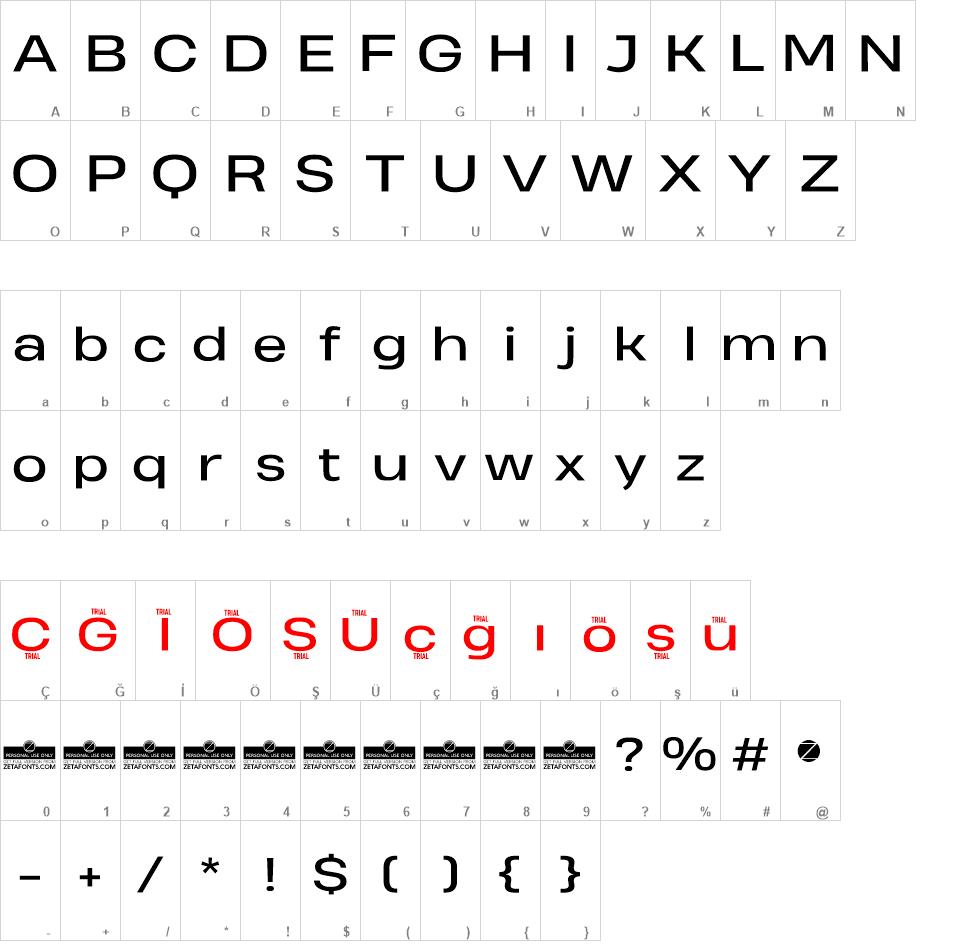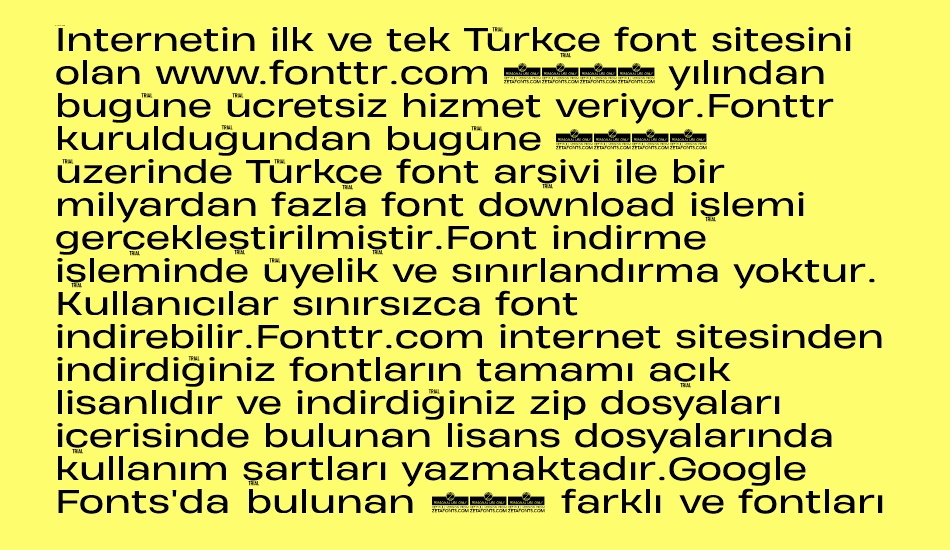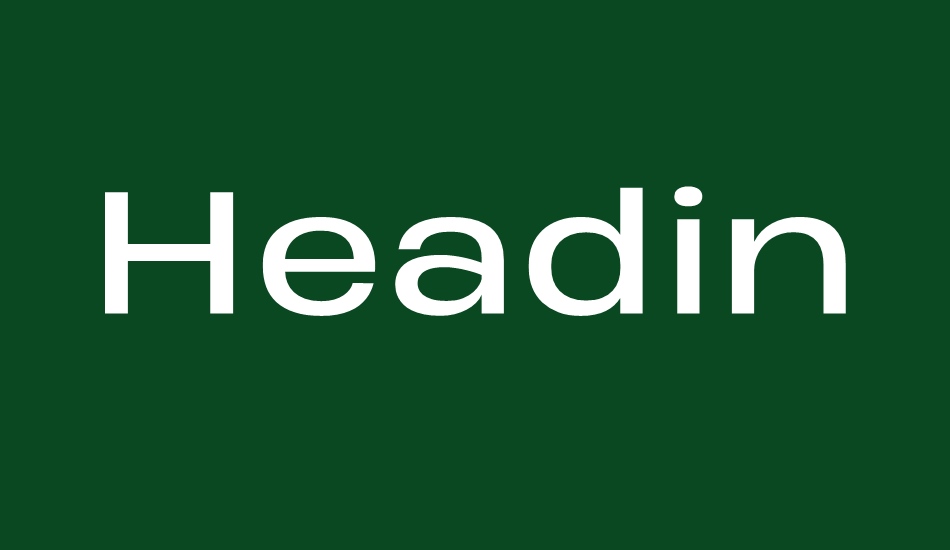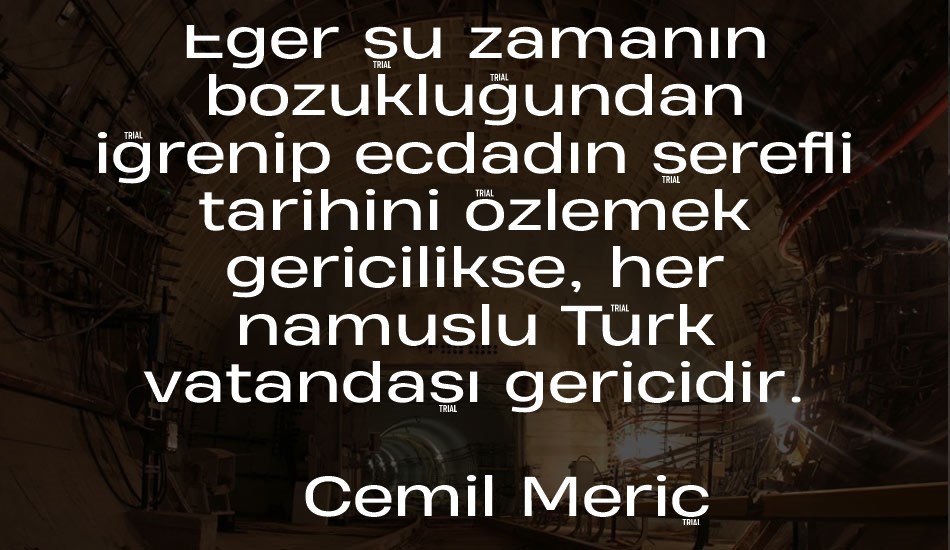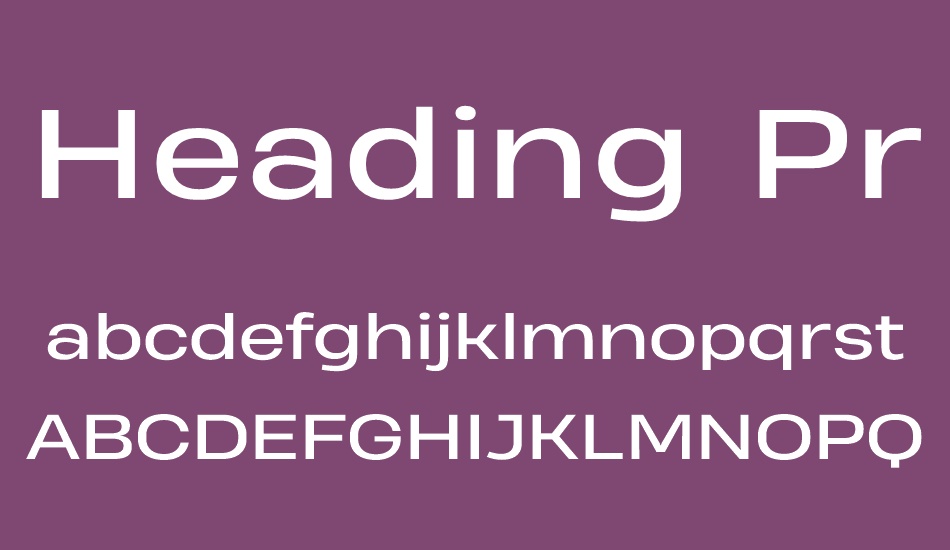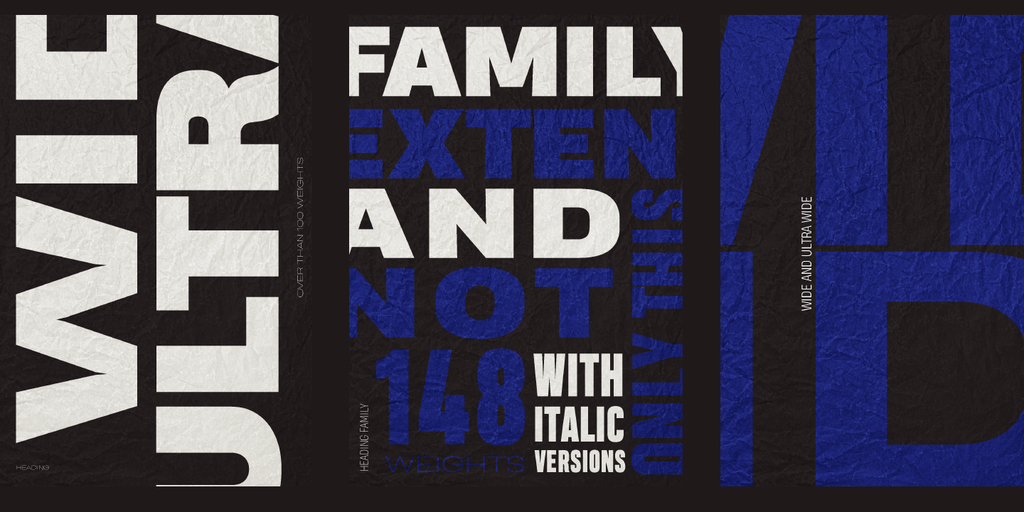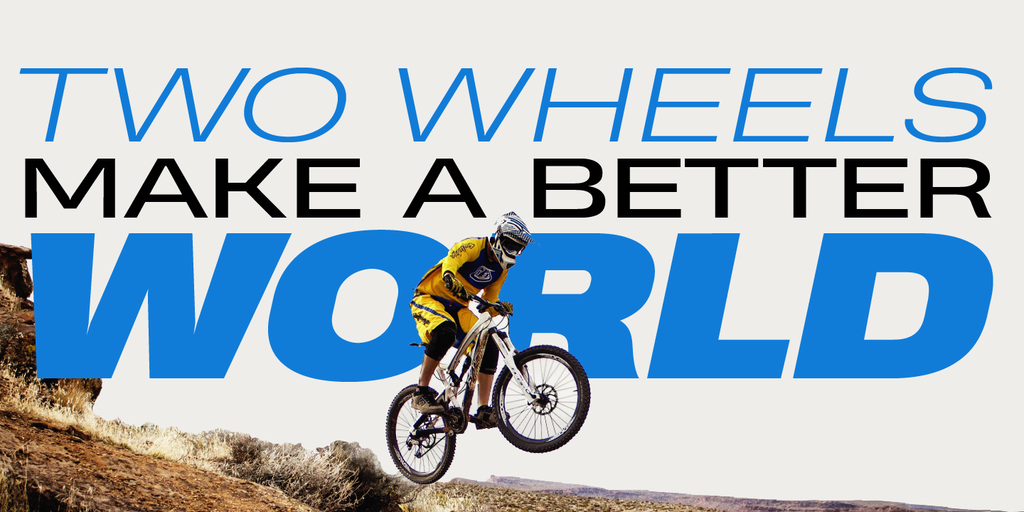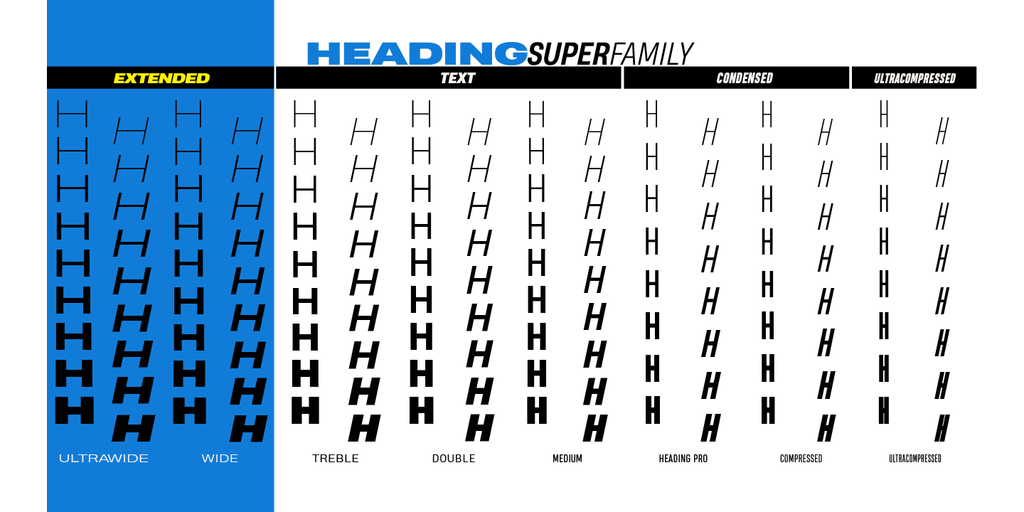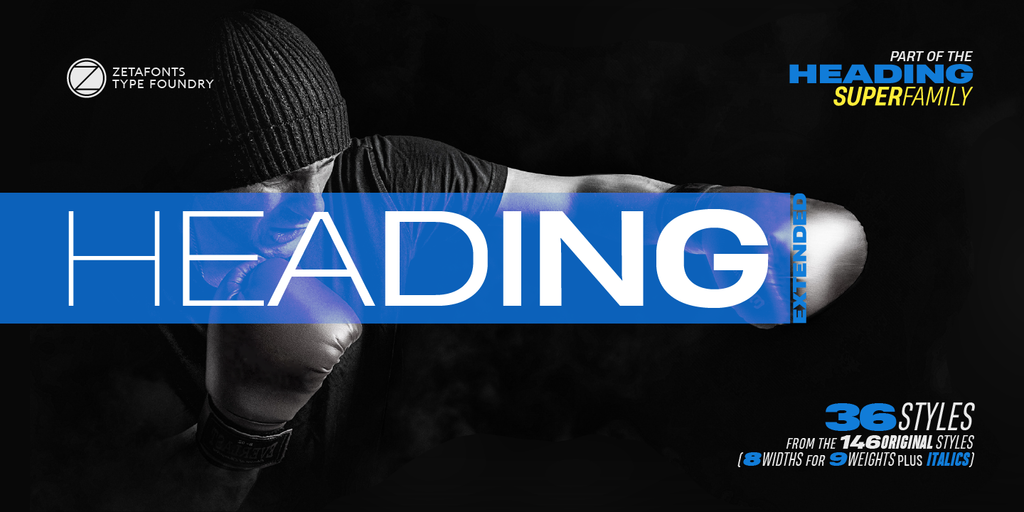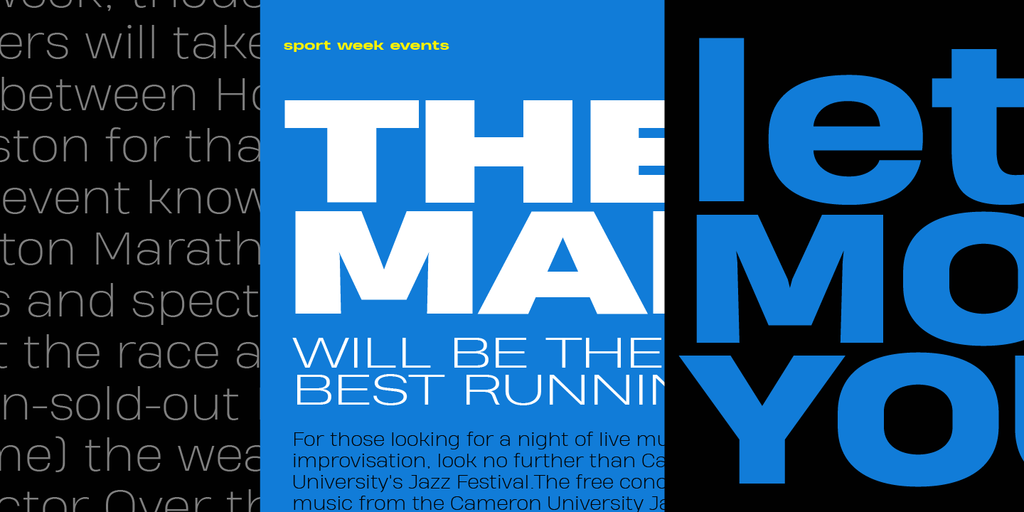
Heading Pro font
Heading Pro Wide Trial Font
Heading Pro Wide has been added to the original condensed width family to be used for titling where style and raw energy matter more than pixel or paper economy. Still keeping the original design of Heading, with a (post) modernist attention to readability and detail, the wide sizes allow you to write strong headlines and play with sub-headings and short text blocks. Matching italics can provide you with versatility in text use as well as a viable display alternate for bolder weights, with a strong sport/energy feel.
It includes over 800 characters with coverage for 100+ languages using Latin, Cyrillic and Greek alphabets. A full array of open-type features is included in each weight including stylistic alternates, small caps, old-style and tabular numerals and positional figures.
Heading Pro Wide Trial font